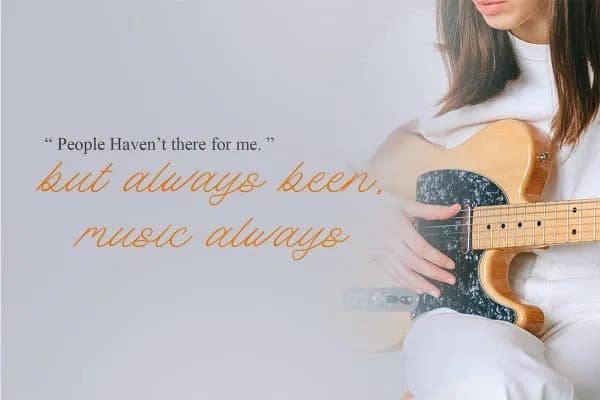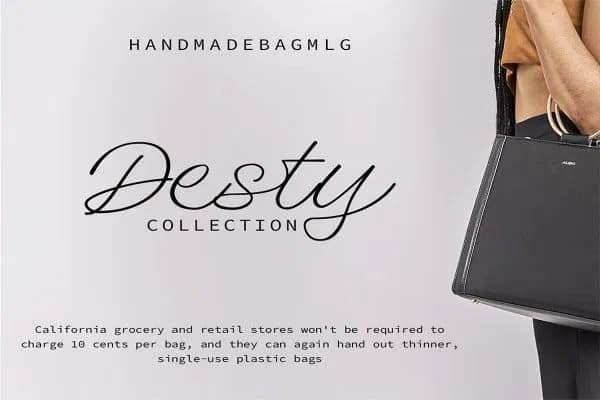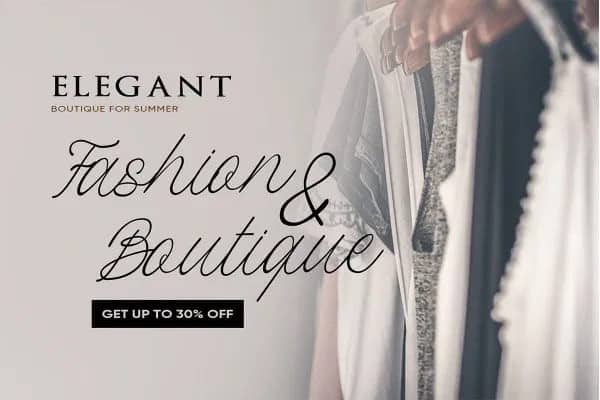
Groovy Script Font is a magical hand-drawn typeface carefully created with a touch of elegance. It’s designed and shared by Staircase Studio. With ornamental vintage style and lot of swashes you can create realistic headers. This font are perfect for wedding postcard. Or you can create perfect and unique design of your logo, blog, stationery, marketing, magazines and more.